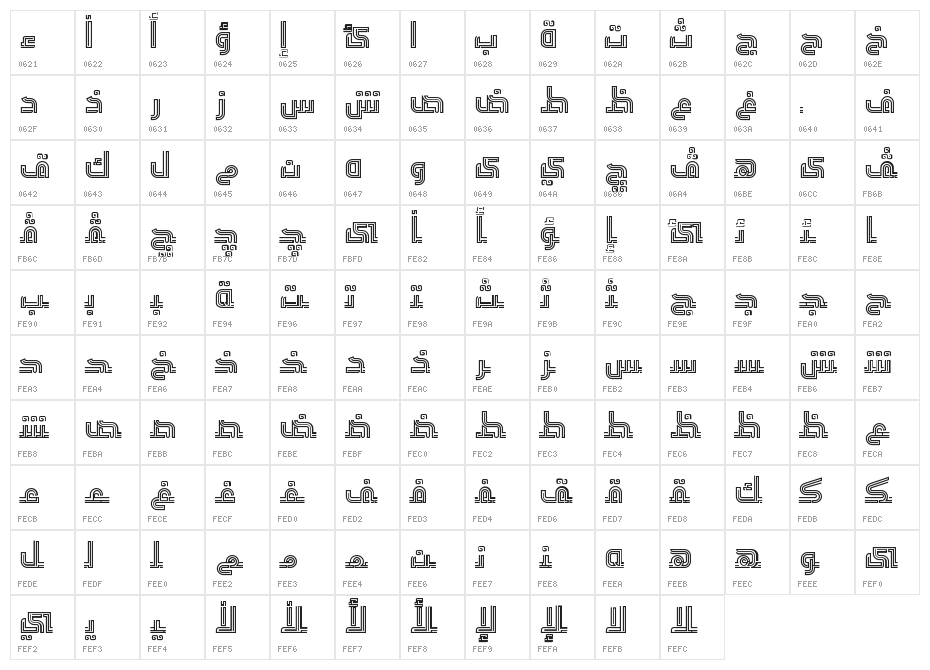
Maze Font 2 Font
Maze Font 2 Description
This font features a unique and intricate design, resembling a maze-like structure. Each character is composed of interconnected lines and curves, creating a complex and visually engaging pattern. The letters are bold and have a consistent thickness throughout, giving them a strong presence. The overall appearance is modern and artistic, making it suitable for creative and decorative purposes. The font maintains a uniform width and spacing, ensuring readability despite its elaborate design. It is ideal for projects that require a distinctive and eye-catching typeface.
| Proposed Projects | Perfect for posters, album covers, branding, and artistic projects that require a standout typeface. |